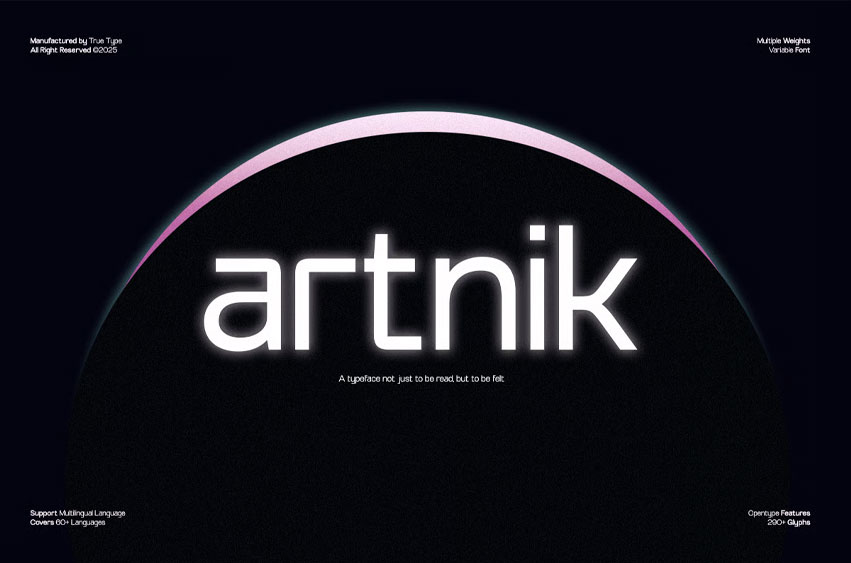
Artnik Font
Artnik Font reminded me of the strength of simple letterforms I had once seen in classic fonts like Futura. That typeface carries a sense of precision, order, and timelessness — but I wanted to create a version that felt more flexible and refreshed for today’s design needs.
From there, I started shaping the letters using circles and straight lines, keeping the proportions balanced while adding subtle details to certain characters to make them friendlier and more recognizable.
The result is TBJ Artnik — a semi-display sans serif that maintains a geometric structure yet remains versatile for a wide range of projects. From branding and editorial work to digital interfaces, Artnik is designed to be clear, clean, and full of character.